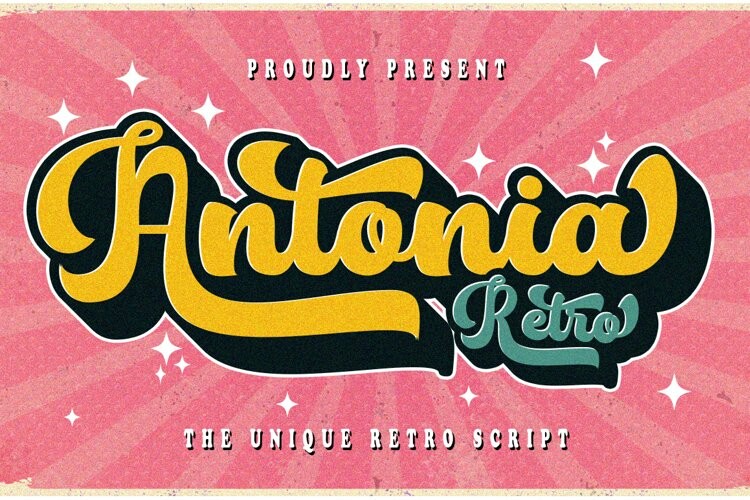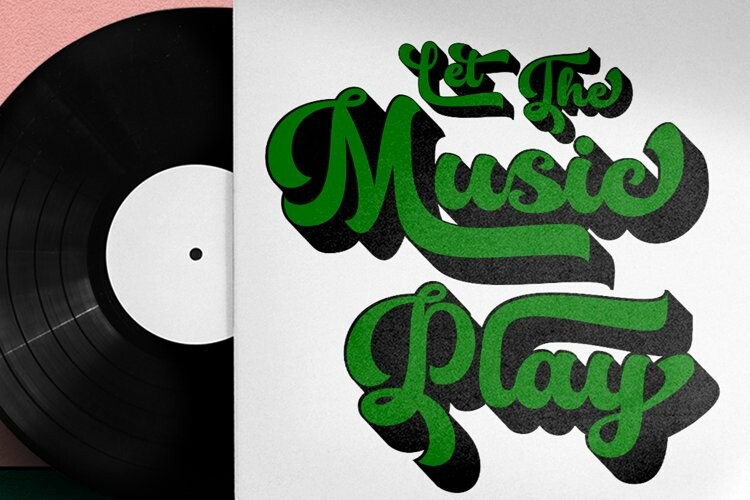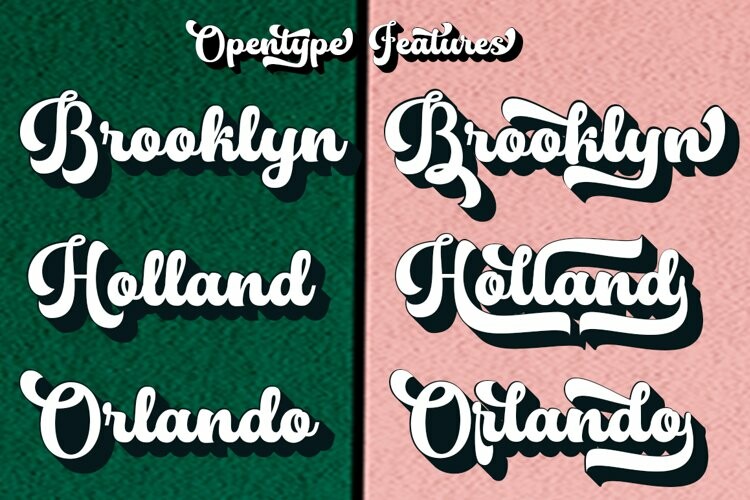
Antonia Retro Font
Antonia Retro FontIntroducing, Antonia Retro. Bold retro script that takes you back to the ’60s feel. This typeface has an extruded version so you can easily create retro effect fonts. This font is very suitable to be applied especially to logos, and various other formal forms such as invitations, labels, logos, magazines, books, greeting/wedding cards, packaging, fashion, make up, stationery, novels, labels or any type. advertising purposes.